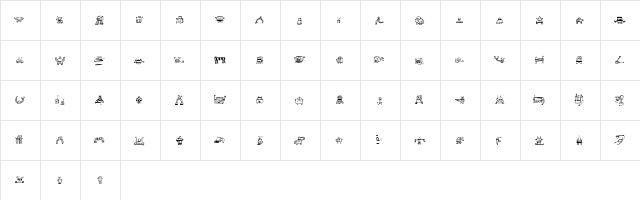
Alphabots Regular
Design Context for Alphabots Typeface
Alphabots is a composed and adaptable typeface that performs quietly and consistently across a wide range of design contexts.